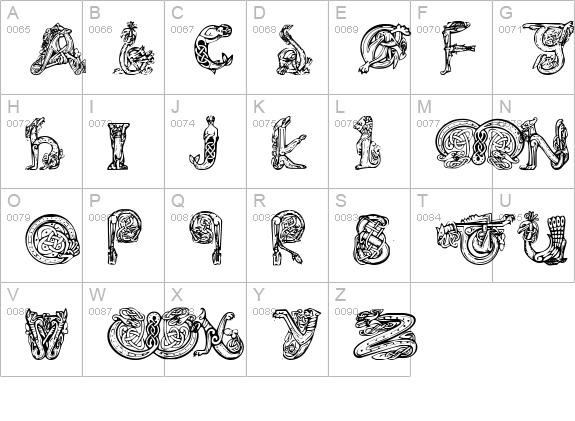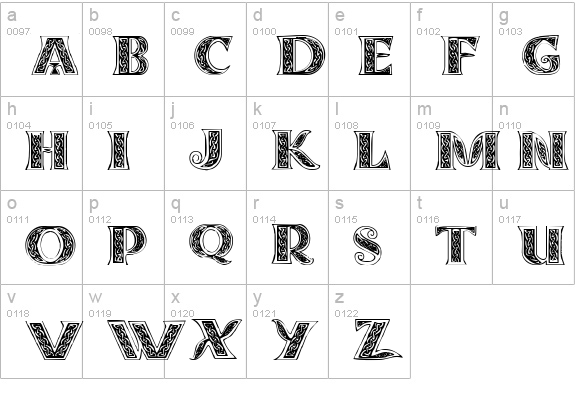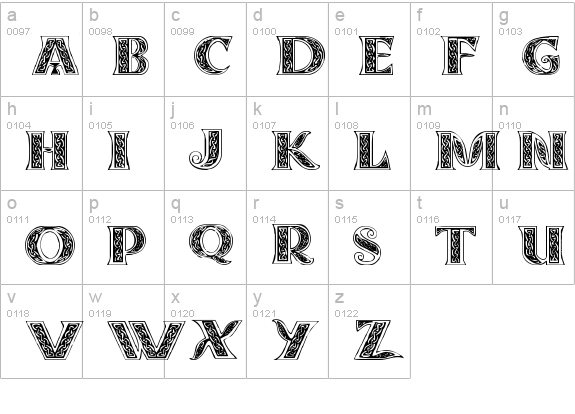
Celtasmigoria Font Details
Celtasmigoria font is a whimsical and charming typeface that brings a touch of magic to your designs. With its elegant curves and intricate details, this font is perfect for adding a unique flair to any project. Whether you're creating invitations, branding materials, or social media graphics, Celtasmigoria font will make your text stand out with its playful yet sophisticated style. The best part? Celtasmigoria font is completely free to download at FontsMarket.com. You can easily access this beautiful font and enhance your creative projects without breaking the bank. Don't miss out on the opportunity to add Celtasmigoria font to your font library and take your designs to the next level. Download it today and let your creativity soar!